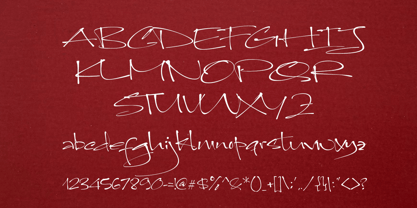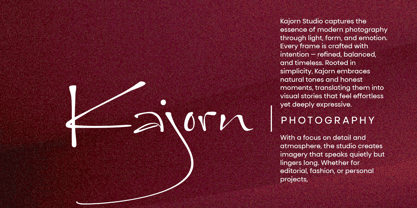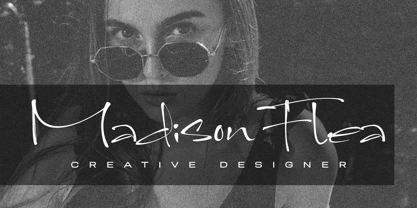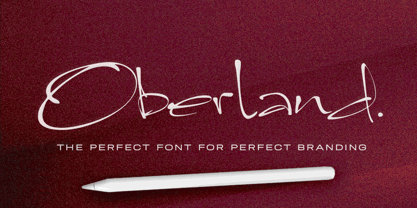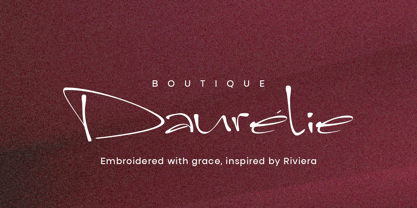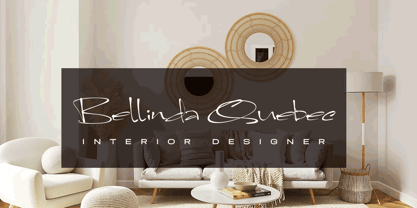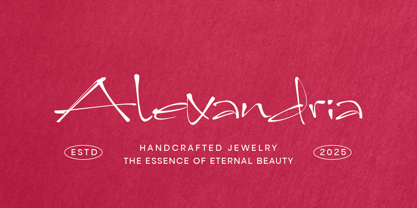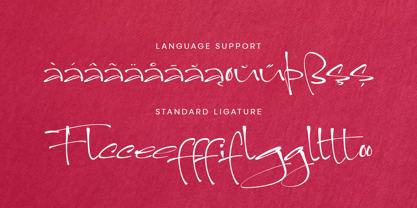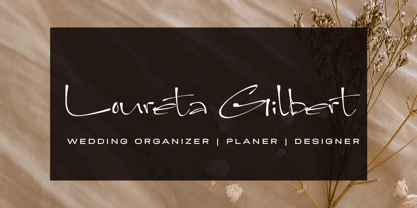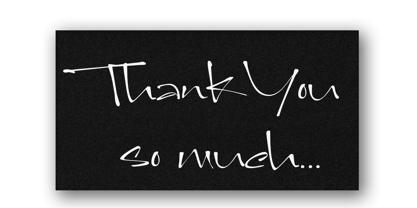
Oberland
by MMMA Creative
The Oberland Font Family was designed by Siti Saribanon Nurjannah, Muhammad Mevlana Maliq Azizi and published by MMMA Creative. Oberland contains 1 styles. More about this family
Oberland is a typeface born from imperfection, celebrating the raw character of every single letter. Each glyph is intentionally unpolished, carrying its own rhythm, flaws, and uniqueness that demand attention and spark intrigue. The strokes feel bold and handmade, designed not to mimic perfection but to embody freedom and authenticity. On their own, the letters stand as imperfect fragments, yet when they come together as words and sentences, they align into a harmony that feels powerful, cohesive, and unforgettable. Oberland proves that perfection is not found in flawlessness, but rather in the union of imperfection — turning raw strokes into rhythm, and individuality into balance. A great choice for designers who seek originality, Oberland brings a distinctive voice to branding, logos, photography quotes, handmade products, cosmetics, boutiques, crafts, banners, book titles, and beyond. Wherever a touch of uniqueness and authenticity is needed, this typeface delivers impact and style that stand apart.
Designers: Siti Saribanon Nurjannah, Muhammad Mevlana Maliq Azizi
Foundry: MMMA Creative
About MMMA Creative
MMMA Creative is an independent type foundry based in Aceh, Indonesia, founded by Muhammad Mevlana Maliq Azizi. With a love for expressive letterforms, MMMA Creative focuses on creating display, graffiti, and handwriting fonts that carry a personal and creative touch.Inspired by urban culture and the freedom of visual expression, each typeface is crafted with care—whether it's bold graffiti styles or natural handwriting. MMMA Creative is a place where letters are shaped by passion, built with a DIY spirit, and made to connect through character.